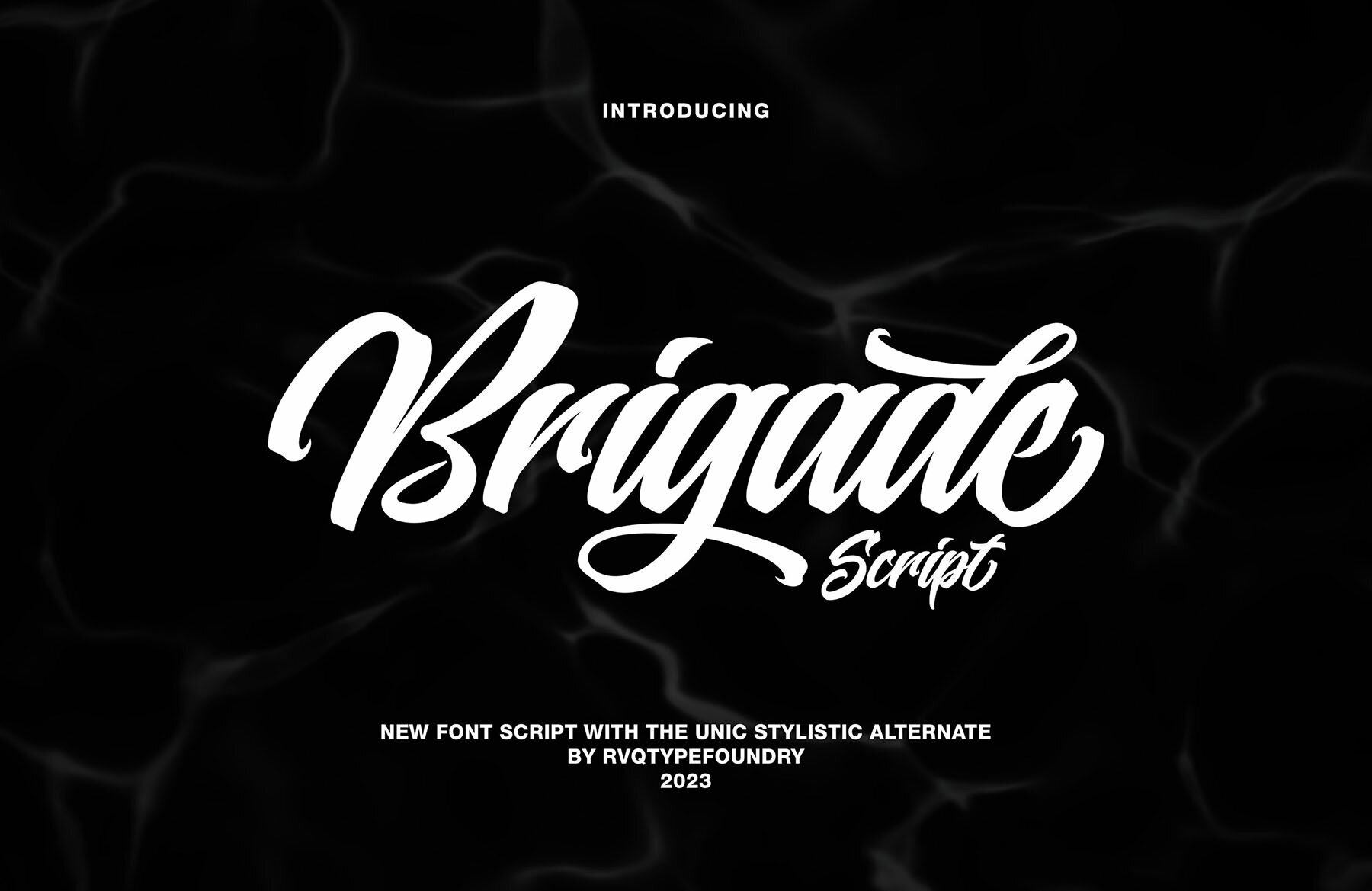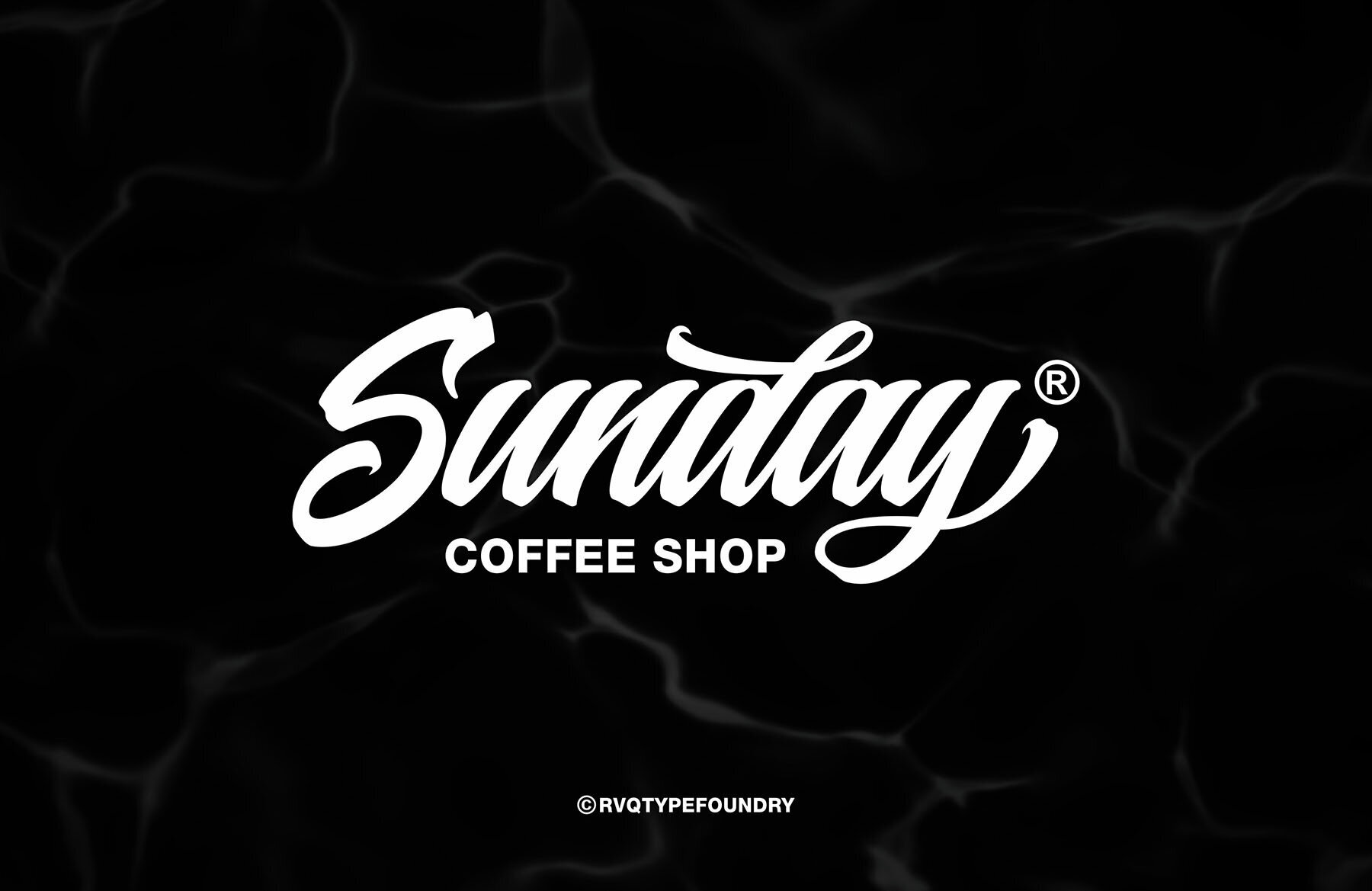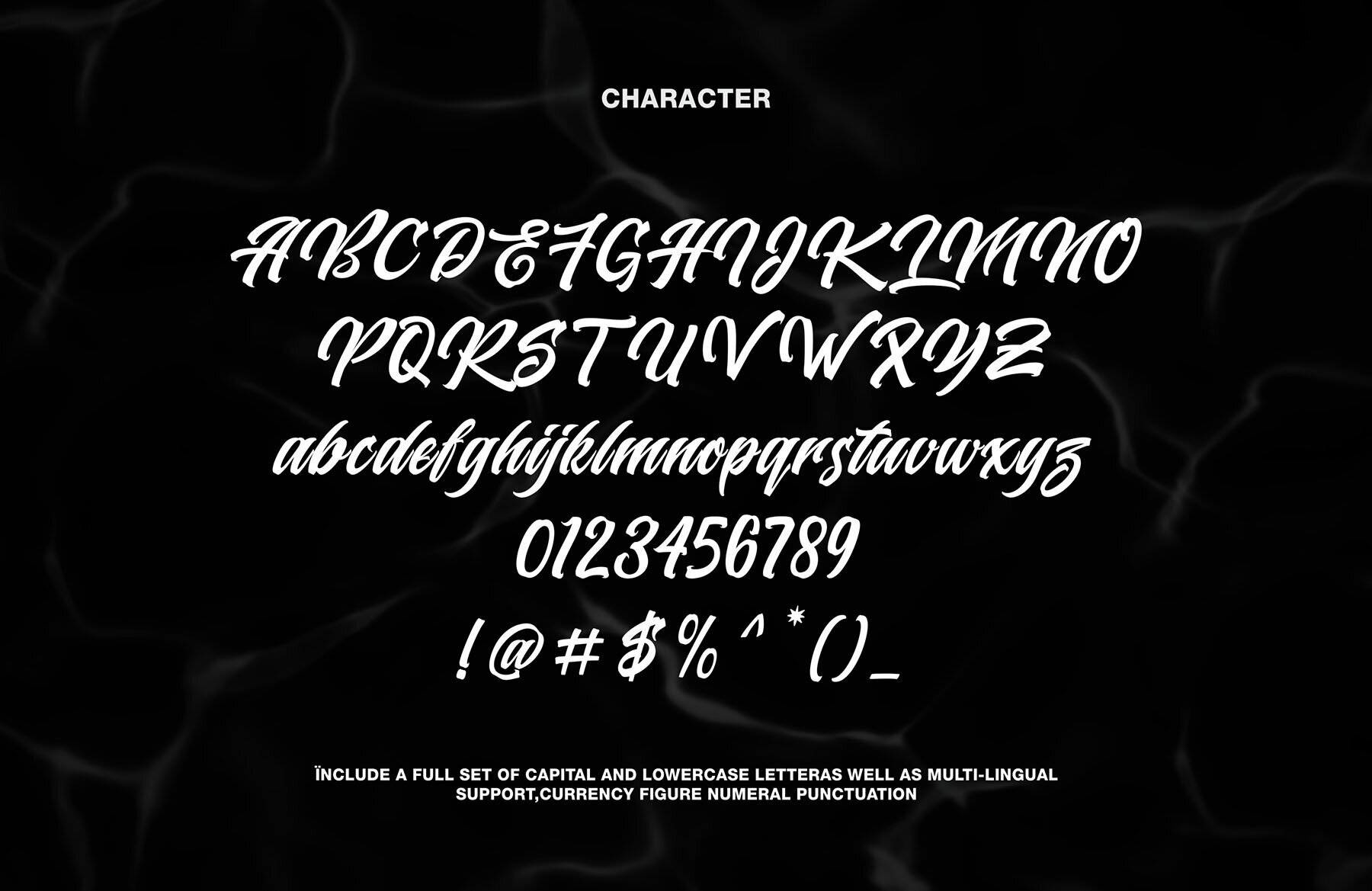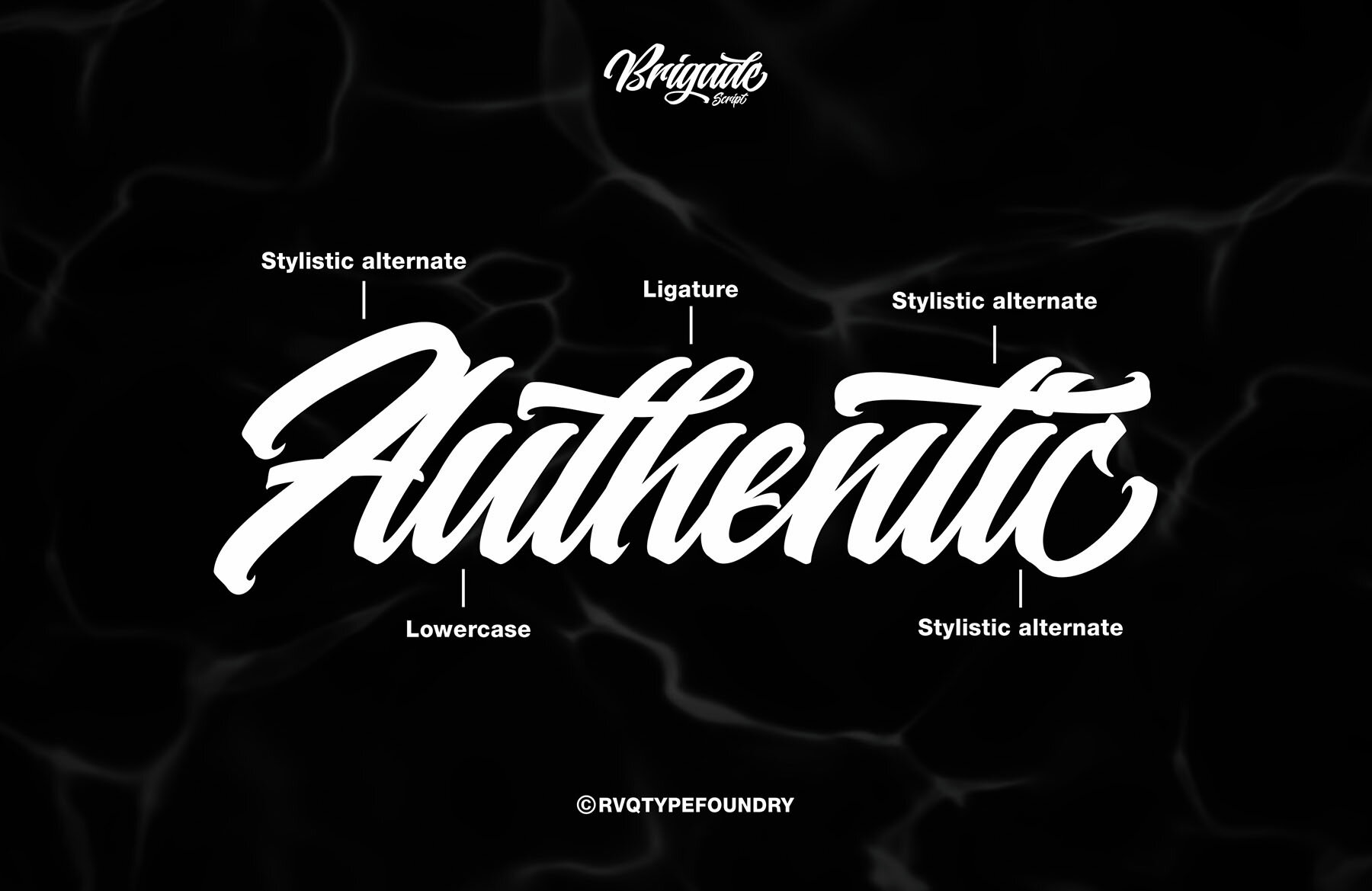
Brigade Script Font
Brigade Script offers a classy, elegant, and vintage handlettering style that adds a unique flair to any project. It provides a complete set of capital and lowercase letters, enhancing versatility in your design work.Brigade Script: Elegant Handlettering Font